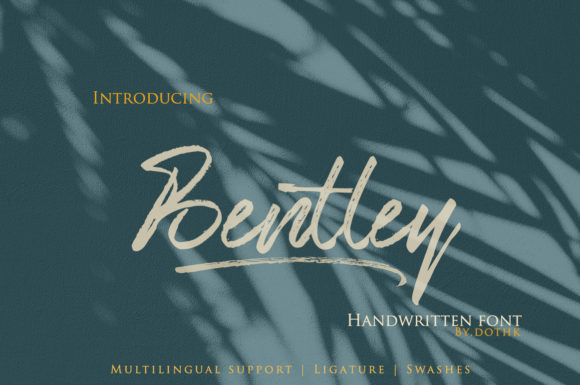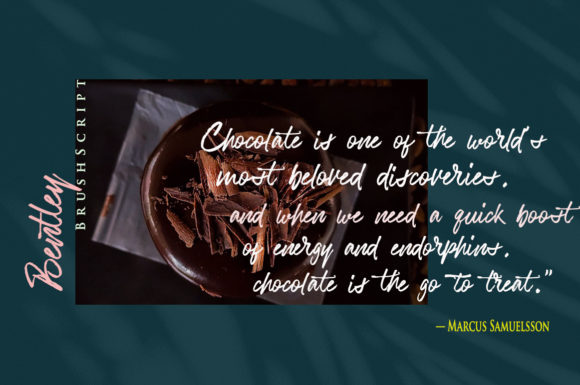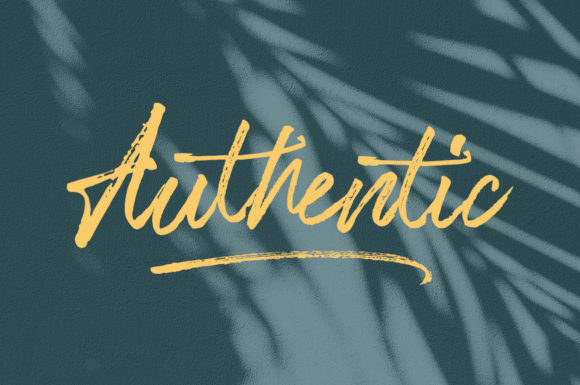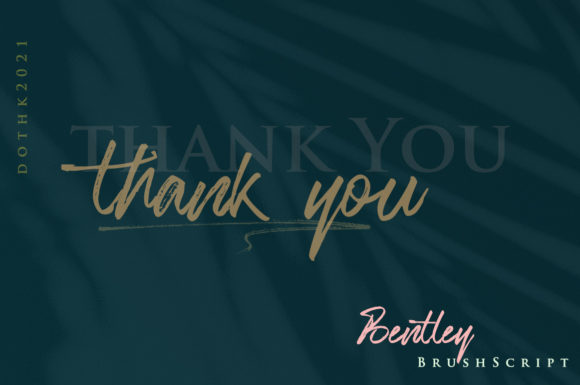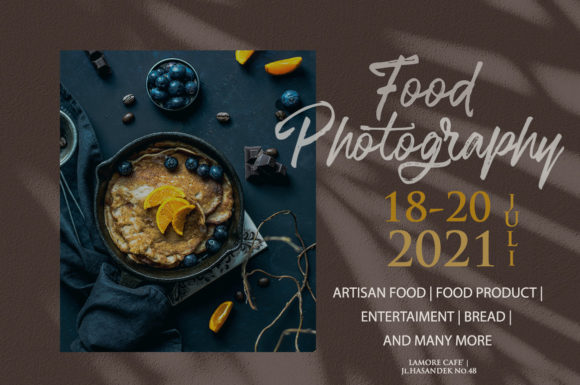
Bentley Script Font
About Bentley Script Font
Bentley Script is a sweet and delicate brushed handwritten font. Dainty and joyful, this font will be ideal for writing wedding invitations, cards or any other design that may need a romantic, personalized touch!